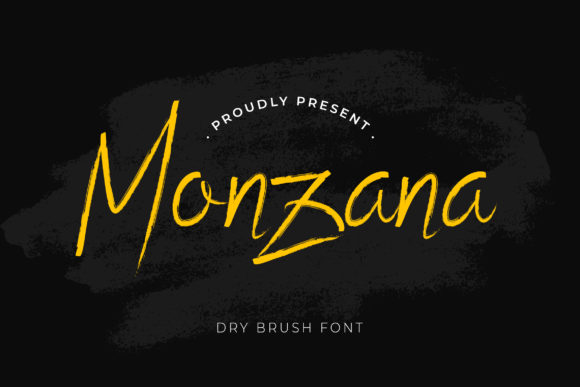
**Unleash the Allure of Monzana: A Font for Mobile Magic**
Immerse yourself in the digital artistry of Monzana, a captivating script font designed to elevate your mobile website presence. Its meticulously crafted curves are as smooth as flowing water, offering effortless readability even on the smallest of screens. With Monzana, you'll capture attention and leave a lasting impression, transforming your mobile platform into a visual masterpiece.
Embrace Monzana's versatility, a font that effortlessly adapts to your creative vision. Whether you seek to evoke elegance in a fashion campaign or captivate readers with alluring editorials, its refined brushstrokes will add a touch of sophistication and style.
Step into the realm of mobile distinction with Monzana. Its modern yet timeless aesthetic will elevate your brand, attracting and engaging a wider audience. Experience the transformative power of a font that speaks to the discerning tastes of today's mobile-savvy consumers.
Let Monzana guide you on a journey of digital enchantment, where every scroll and tap becomes an immersive experience. Join the ranks of creative pioneers who trust Monzana to amplify their brand's presence in the dynamic mobile sphere.